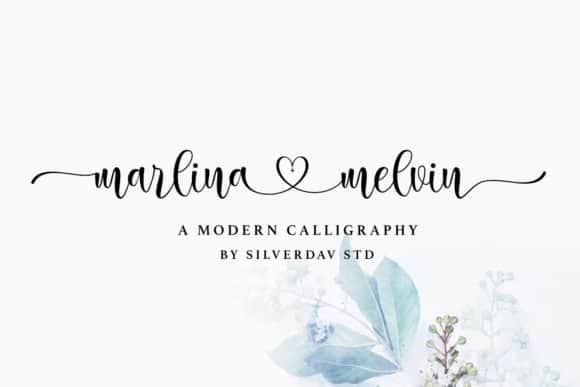
Marlina Melvin Calligraphy Font
Introducing Marlina Melvin Font! A beautiful flowing calligraphy script typeface – carefully created using a pointed pen and ink. Each letter is unique and perfect for anyone looking for a modern calligraphy font.
Author have spent many hours designing and developing this font with oodles of extra features so that you can have the effect of a modern calligraphy script as if it was written by you.